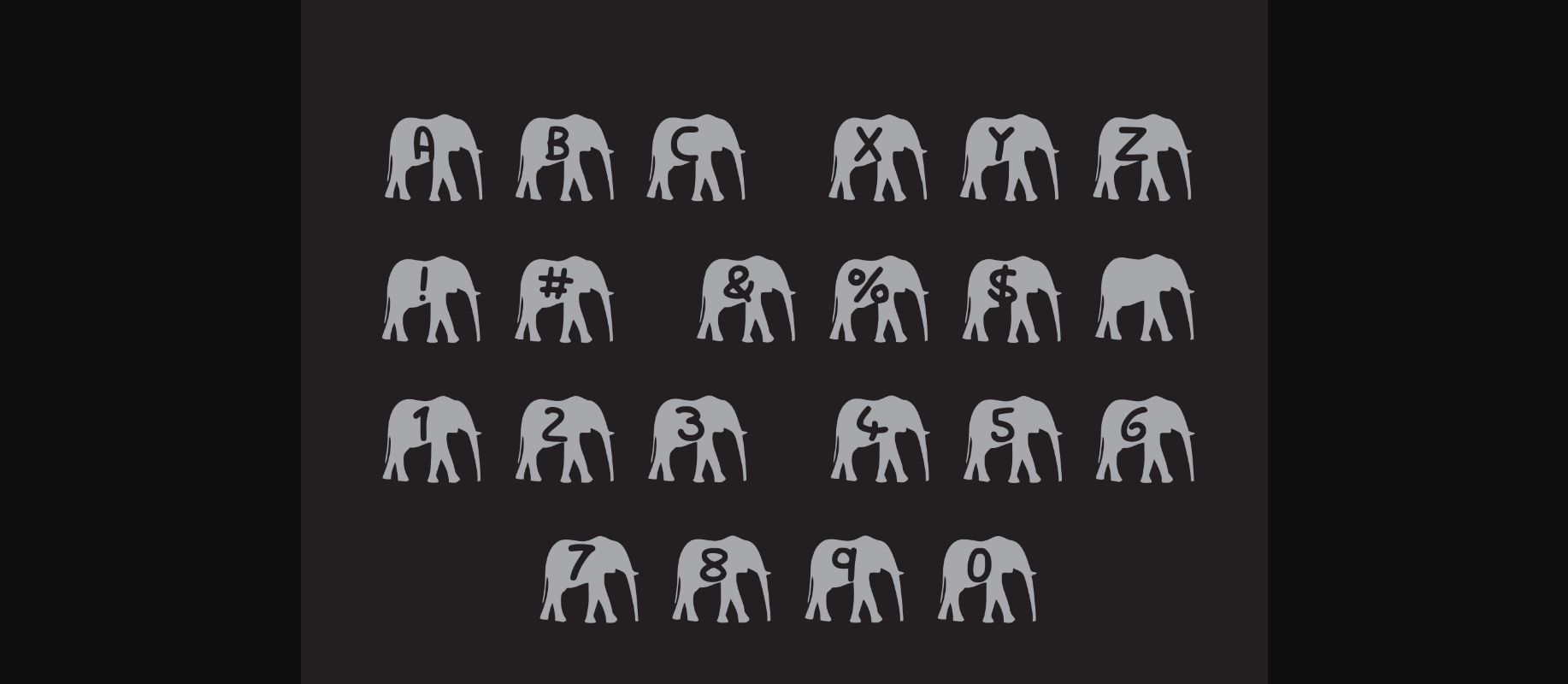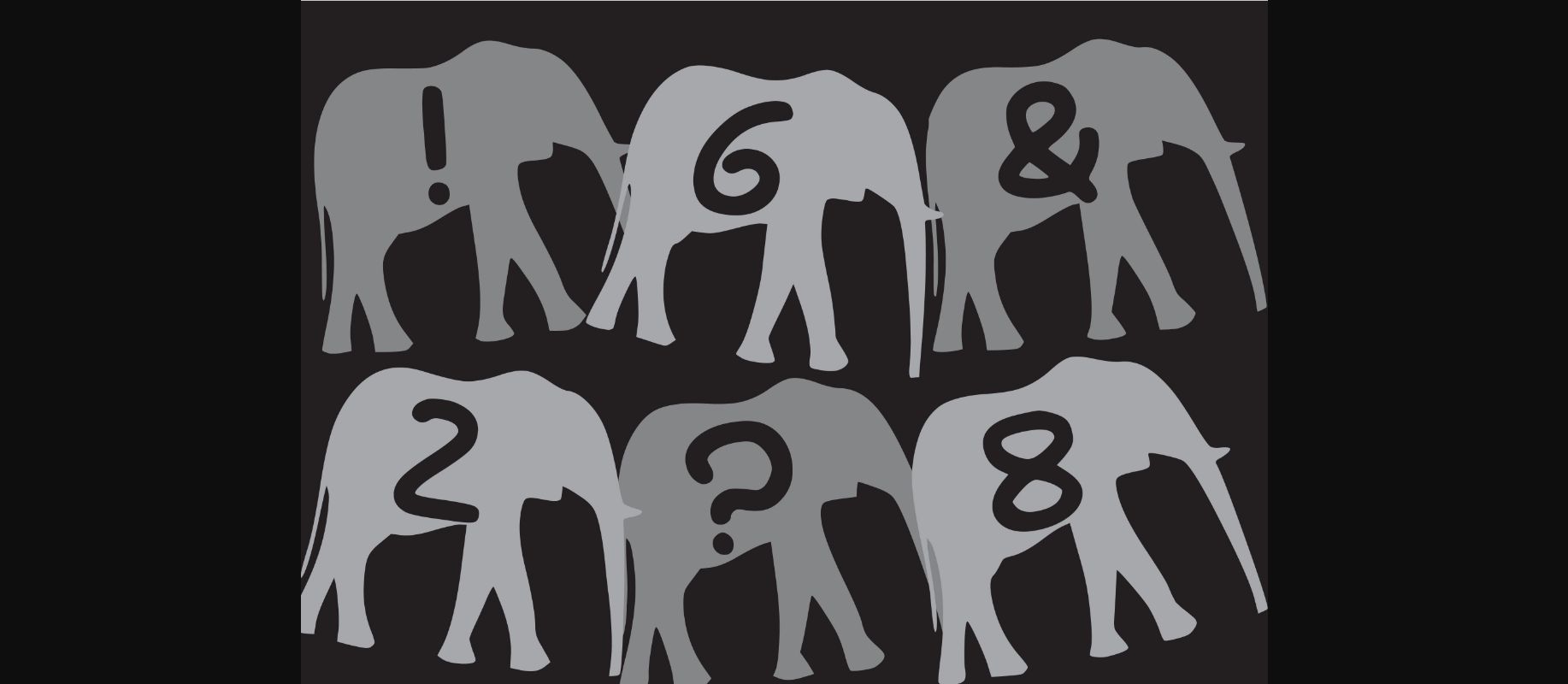
About Play Elephant Walk Font
Play Elephant Walk is a fun and exciting decorative font filled with walking elephants and simple characters. It looks great on storybooks, children’s book covers, apparel designs, zoo-themed items, and so much more.